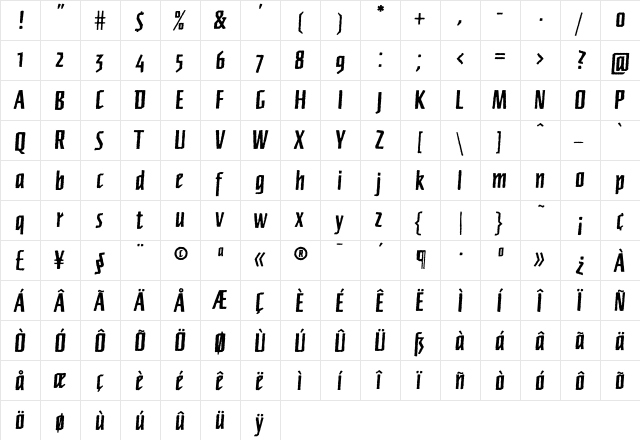
FFNewberlin-BoldRough Regular
Design Context for FFNewberlin-BoldRough Typeface
FFNewberlin-BoldRough trades polish for personality, using distressed and eroded forms to bring grit and attitude to creative work.
Suited to punk-influenced zines, underground music branding, streetwear, and raw, anti-corporate design.
Pro Tip: Pair FFNewberlin-BoldRough with intentionally raw or lo-fi design elements. Fighting against it with overly polished surroundings will undermine its personality.